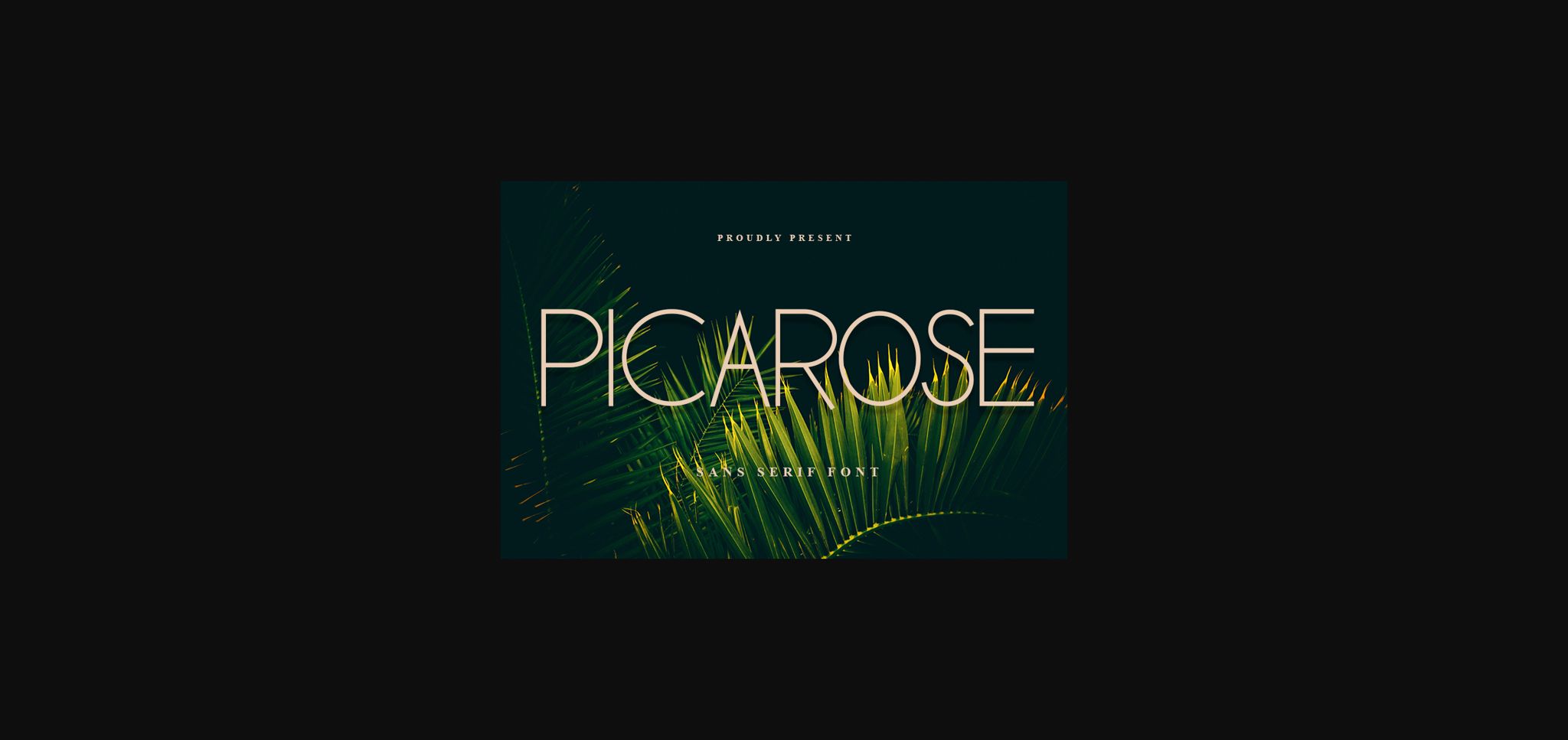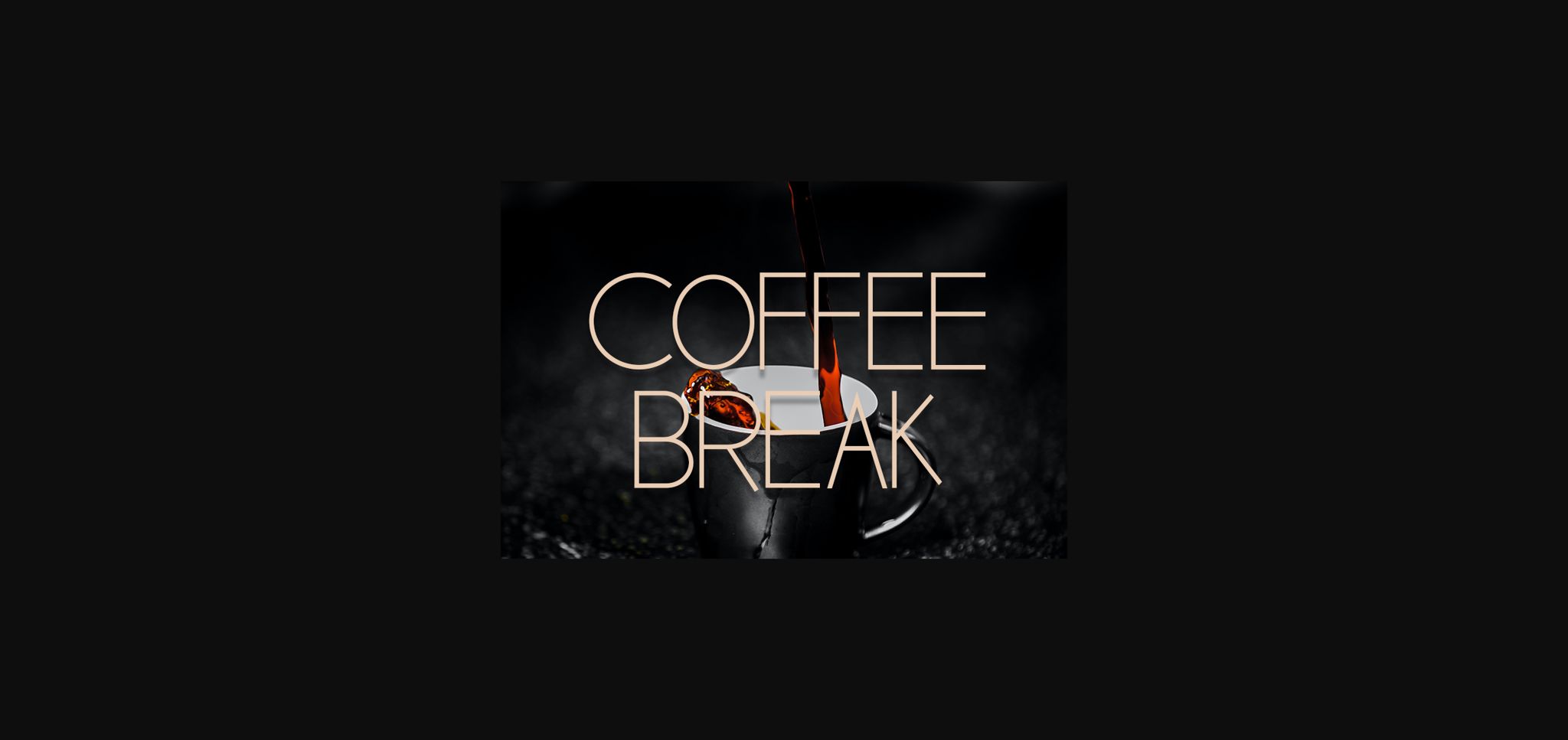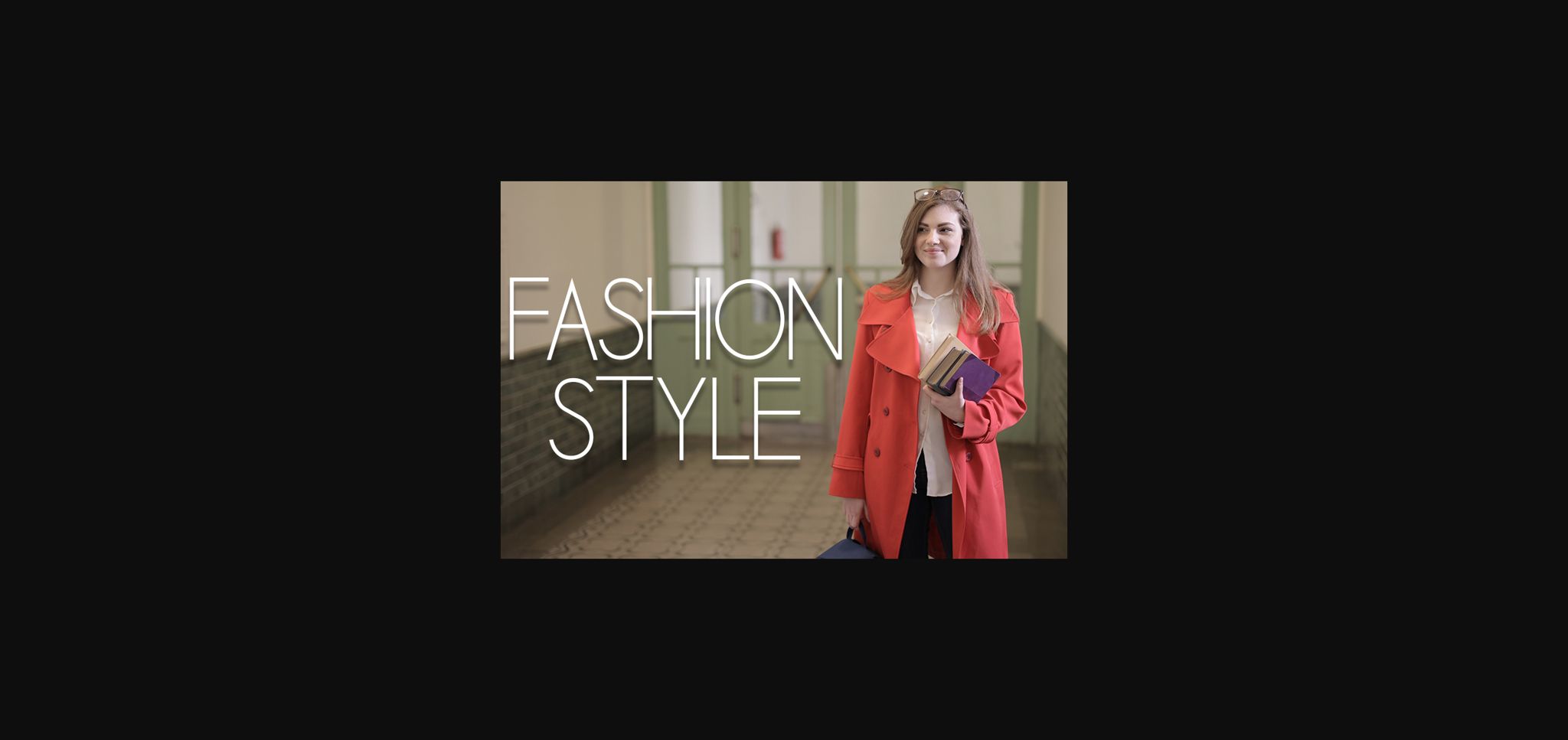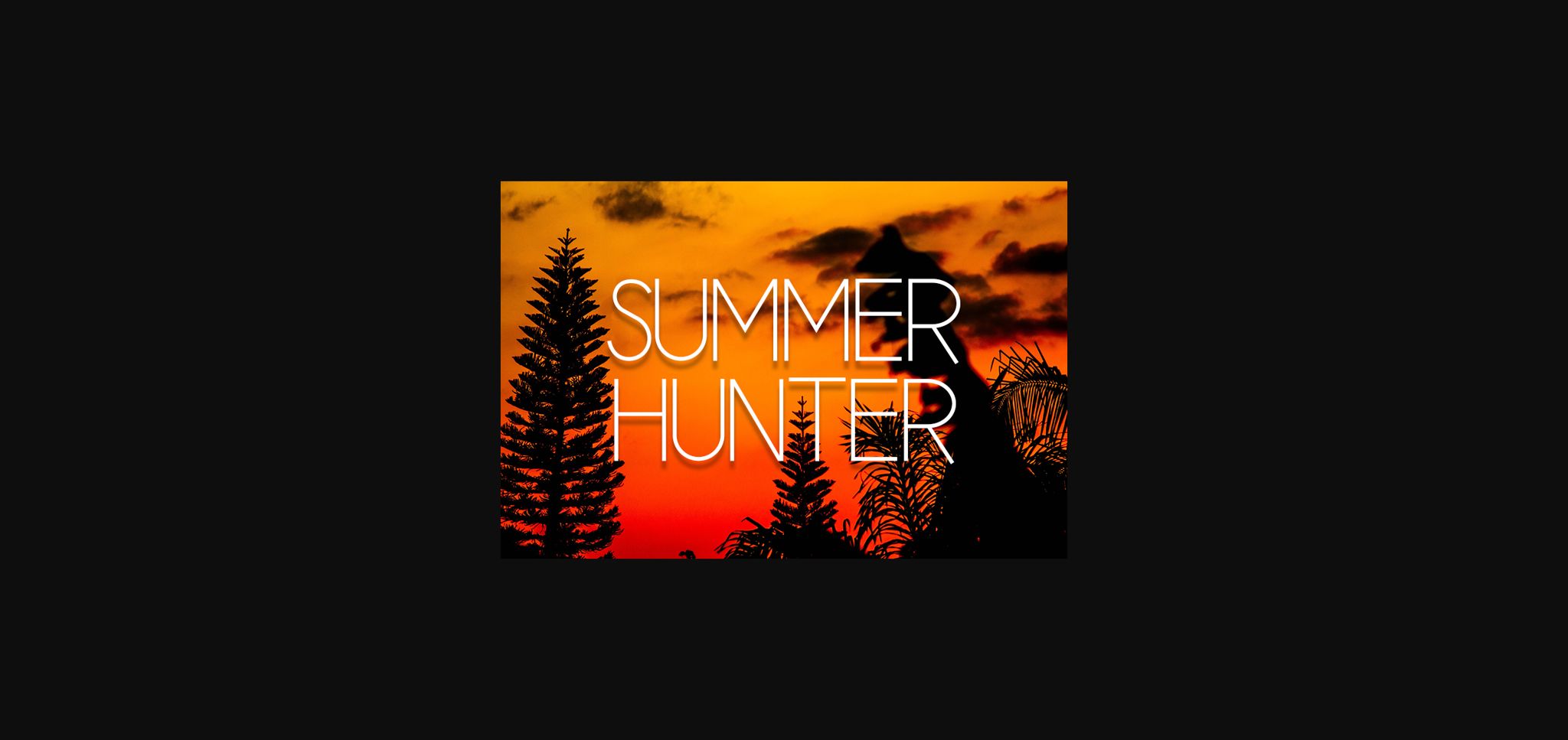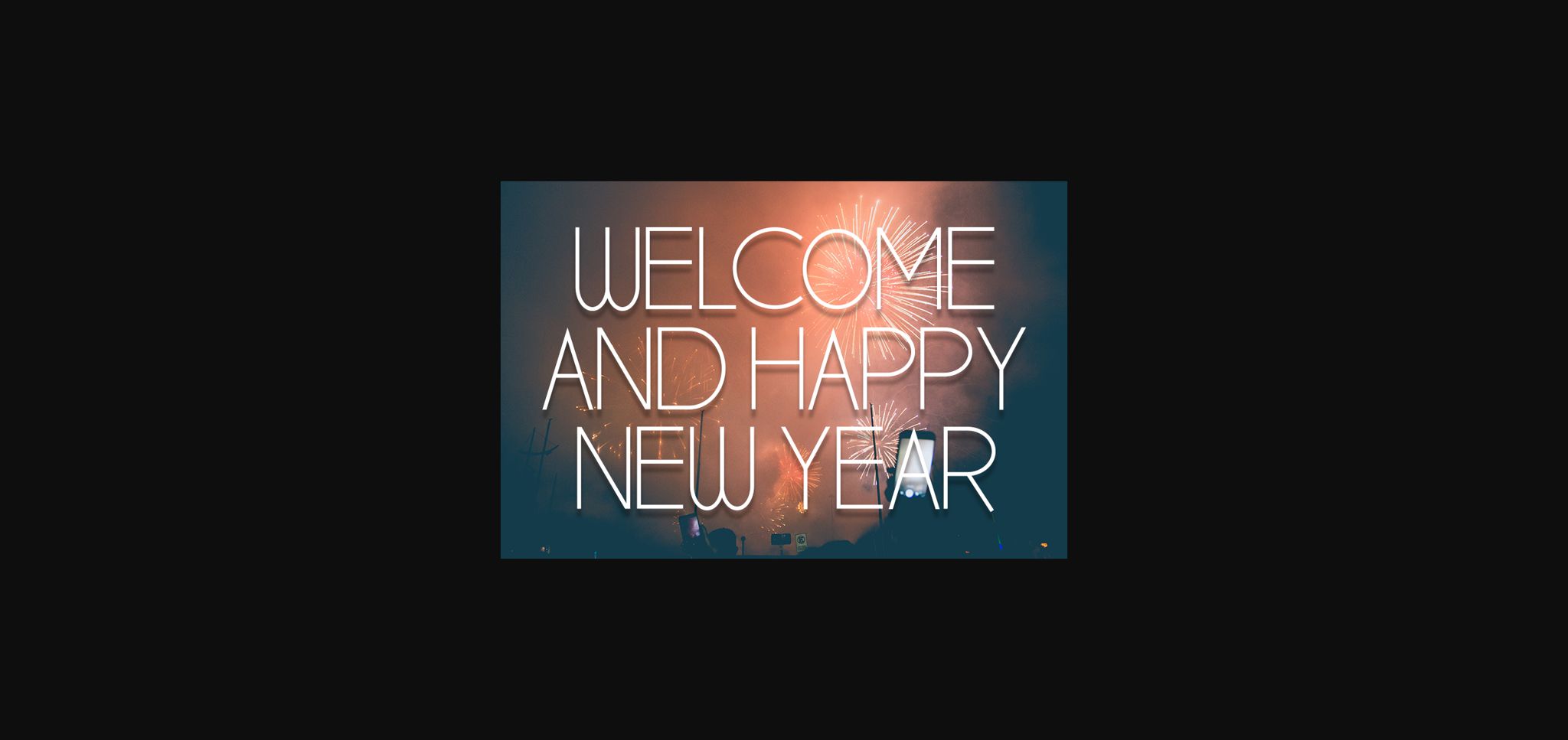
HomeSans Serif FontsPicarose Font Sans Serif Fonts Picarose Font FacebookXPinterestWhatsApp 1 of 7 ... Picarose Font Poster 2... Picarose Font Poster 3... Picarose Font Poster 4... Picarose Font Poster 5... Picarose Font Poster 6... Picarose Font Poster 7... About Picarose Font Picarose is a minimalistic and modern sans serif font. Not too thin and not too thick, balanced and varied, Picarose was designed to enhance the beauty of your projects. DOWNLOAD NOW People also explored Natyl Font Rounded Well Vamos Font Black Rim Enamel Camp Mug Mockup Hello Camelia Font Unicrown Font Rindhus Font Stronger Electric Font Osande Txt Font 332 0 TagsPicarose Font Previous articleBentalista FontNext articleRogueland Font LEAVE A REPLY Cancel reply Comment: Please enter your comment! Name:* Please enter your name here Email:* You have entered an incorrect email address! Please enter your email address here Website: Save my name, email, and website in this browser for the next time I comment. Personal Use Free Blessed Font Personal Use Free Read more about this font Beattingvile Personal Use Free Read more about this font Nouradilla Script Free Version Personal Use Free Read more about this font Braindly Personal Use Free Read more about this font BLOG 5 Fonts That Will Dominate Design Trends in 2026 5 Fonts for 2026 That Will Dominate Design Trends Typography plays a critical role in visual communication, and as we look ahead to 2026, it’s... Best Fonts for T-Shirt Design – Top 2025 Picks Elegant Wedding Invitation Fonts – Handwritten & Script Fonts Exploring Font Trends